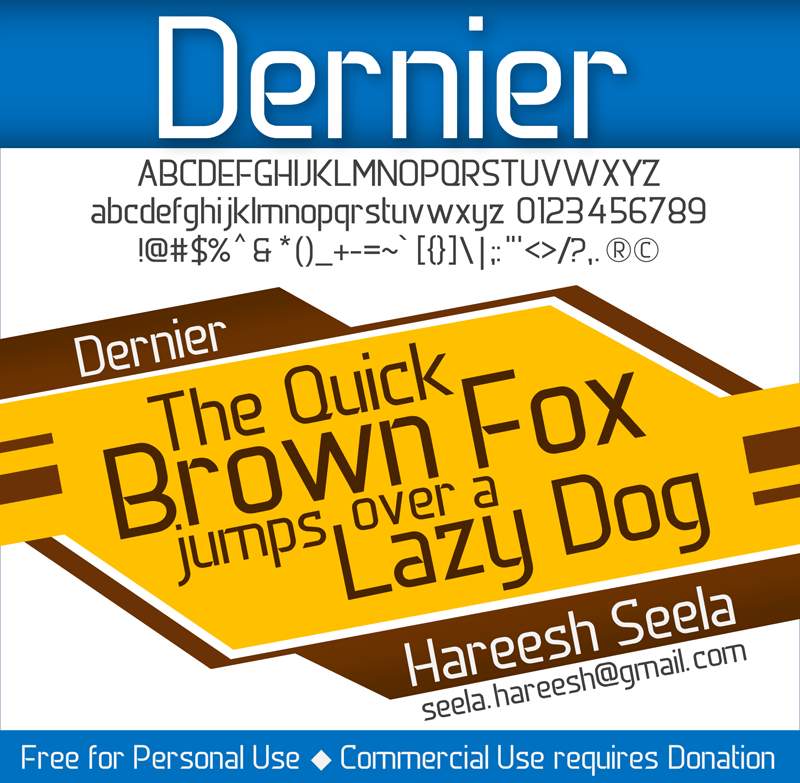
Font name: | Dernier |
Author: | Hareesh Seela |
DERNIER - A New, Modern, Futuristic Font Free for Personal Use. Commercial Use requires Donation. Mail me for any Help/Queries: seela.hareesh@gmail.com Thank You |